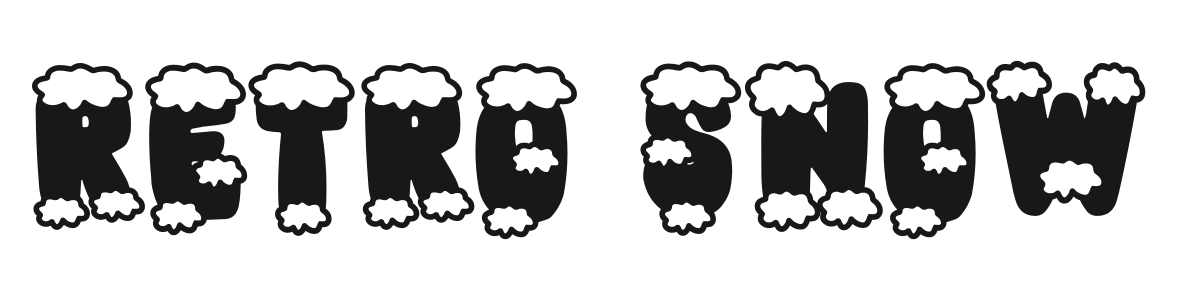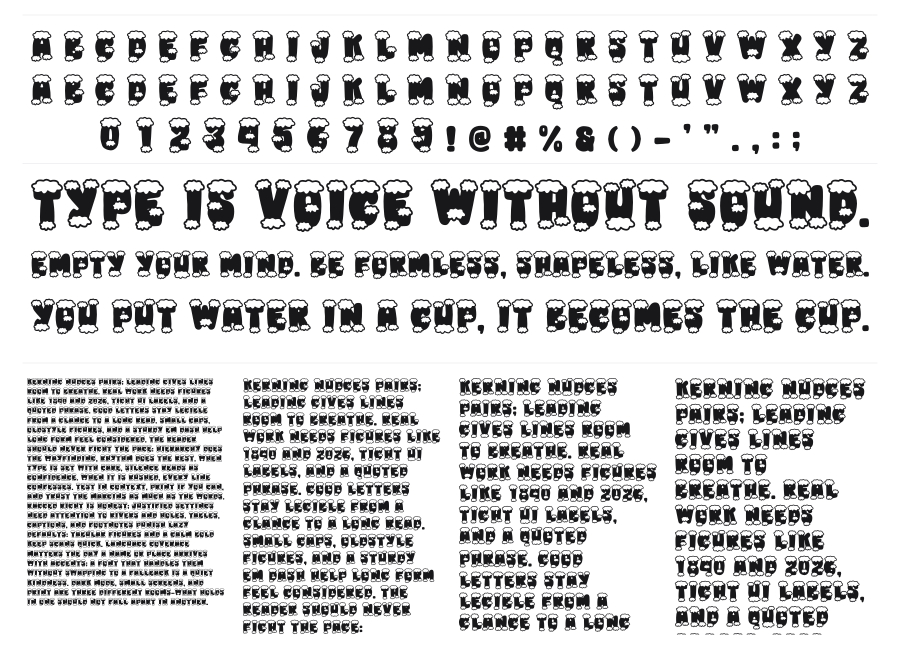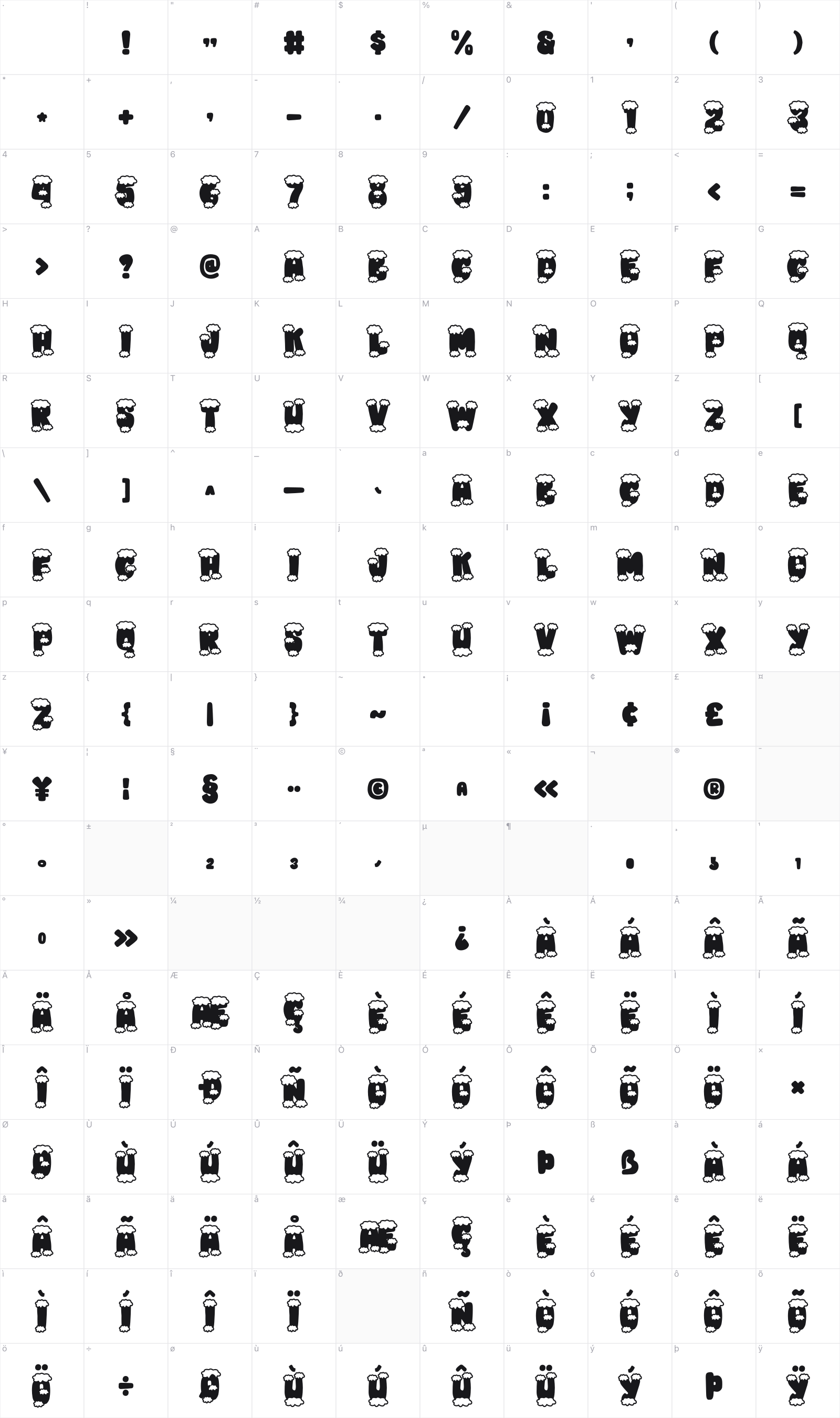
Retro Snow
Retro Snow is a bold novelty display font where every character is blanketed in hand-drawn snow piles. The heavy rounded construction has a retro cartoon quality that feels at home on holiday packaging, seasonal posters, and festive event graphics. It carries a lot of personality at large sizes.